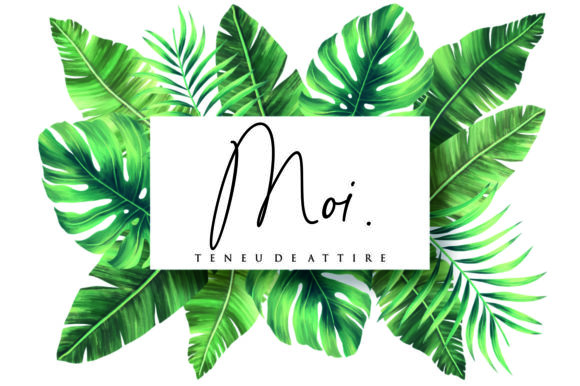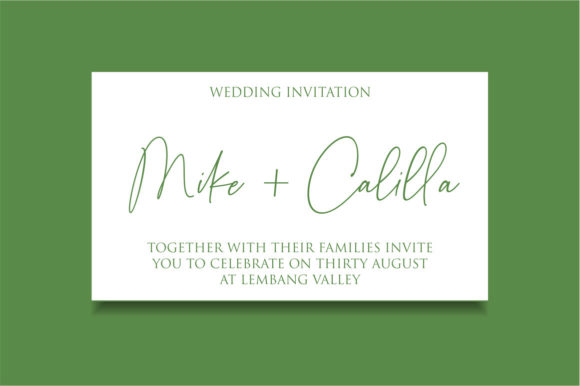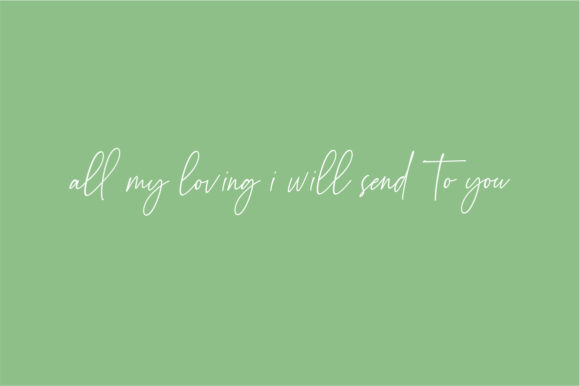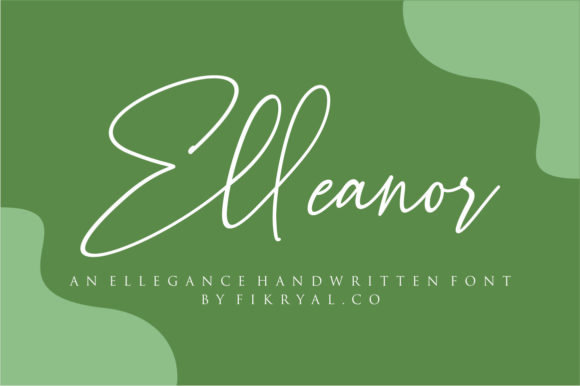
Introduction to Elleanor Font
Elleanor is a fresh, modern, and stylish handwritten font.
Fall in love with its charming appeal .
Why Choose Elleanor Font?
Elleanor Font offers exceptional quality and versatility, making it a valuable addition to your design toolkit. Whether you’re creating for personal projects or commercial use, Elleanor Font delivers professional results.